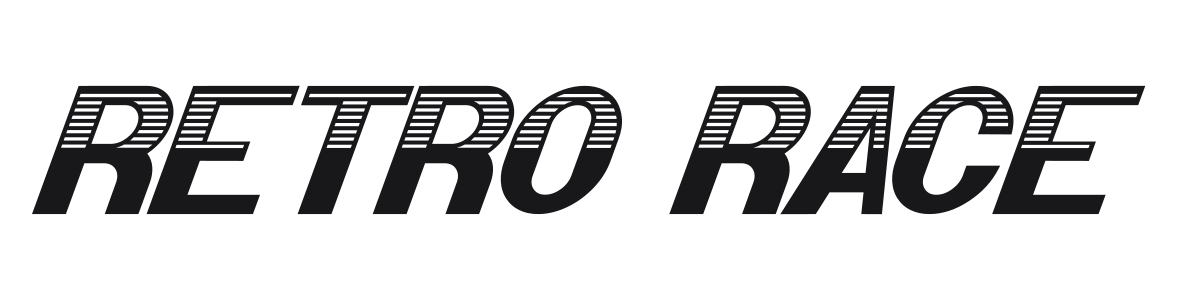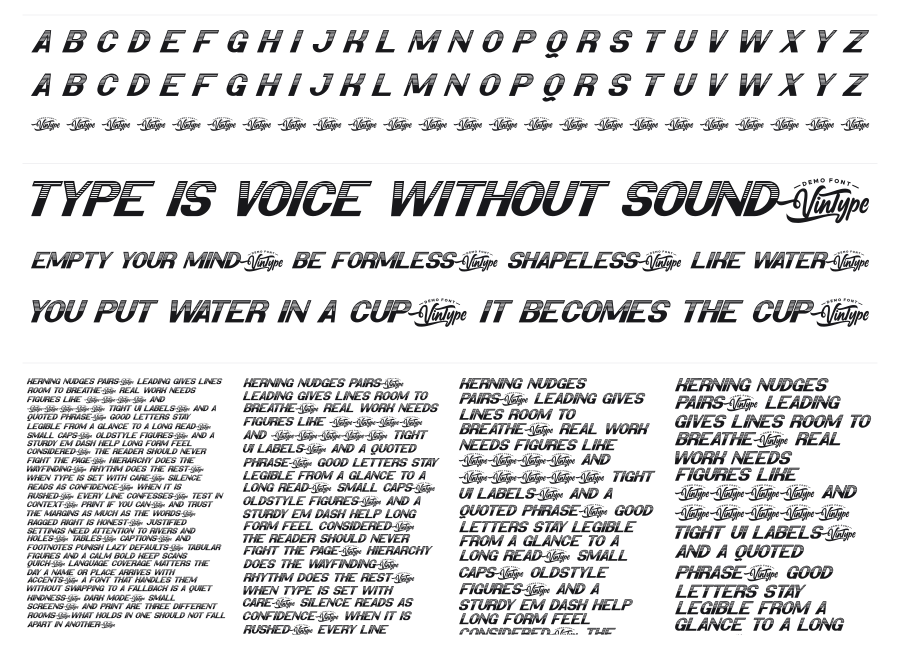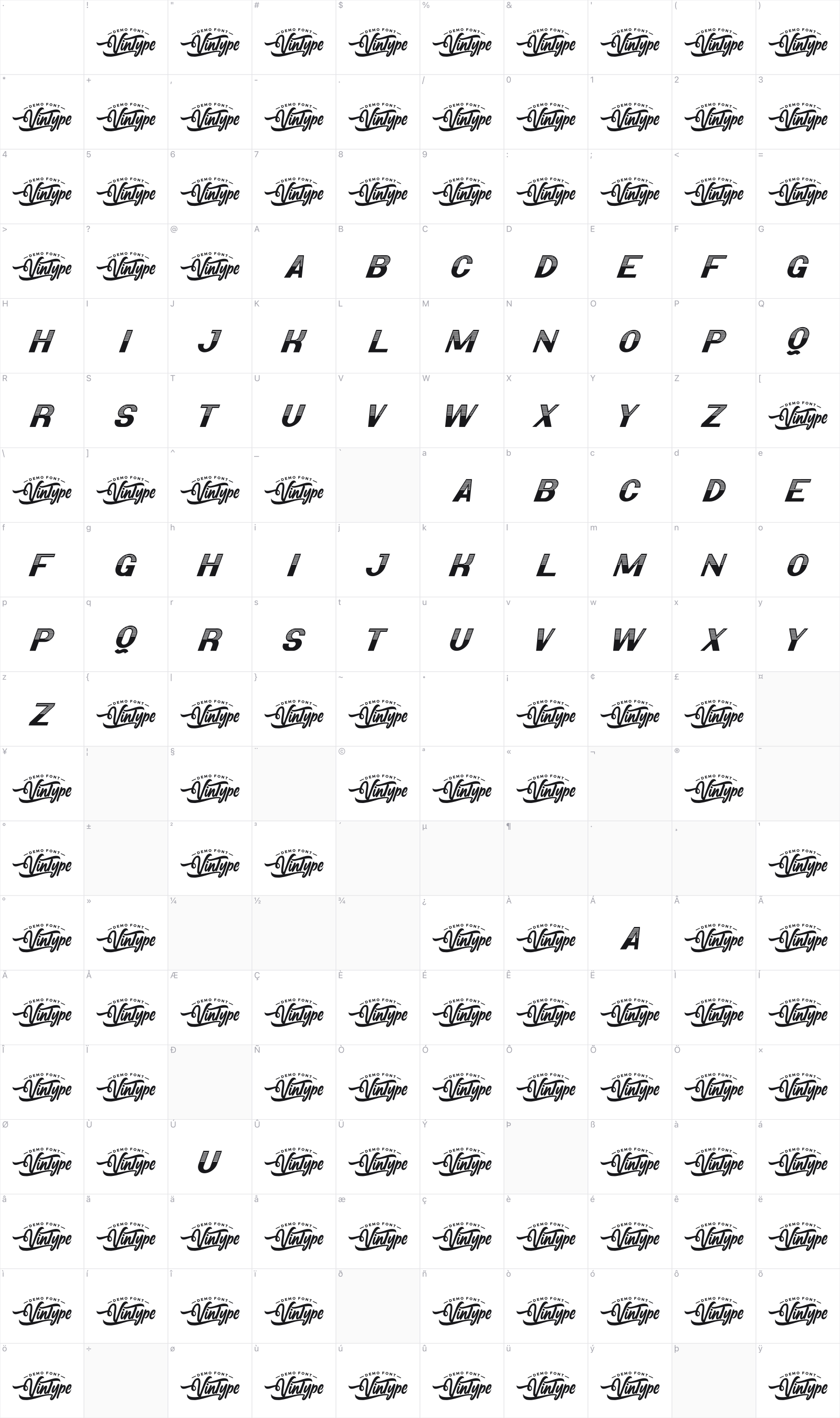
Retro Race
Retro Race is a bold italic display font built around horizontal speed stripes that cut through every stroke, evoking 1970s motorsport numbering and action-movie titles. The heavy condensed italic structure leans hard into motion and aggression. It belongs on race posters, sports branding, and anywhere velocity needs to be felt.